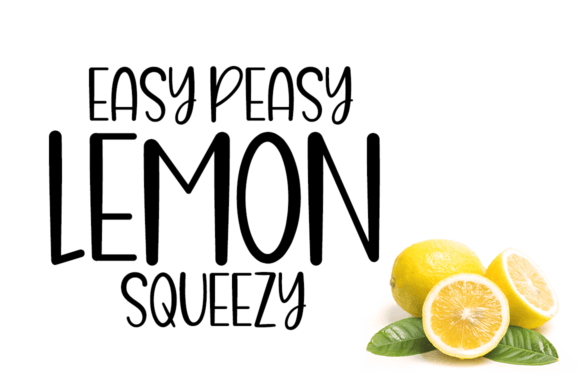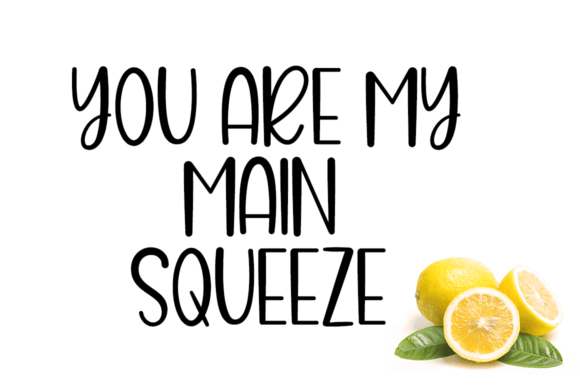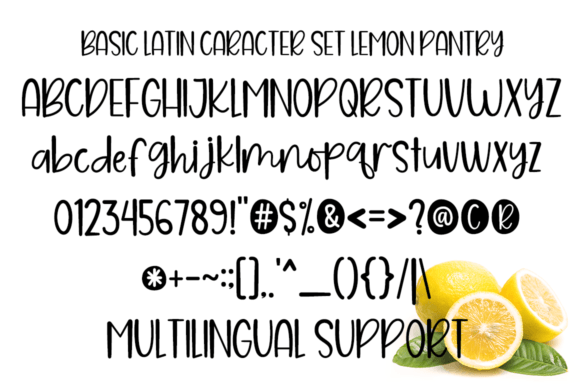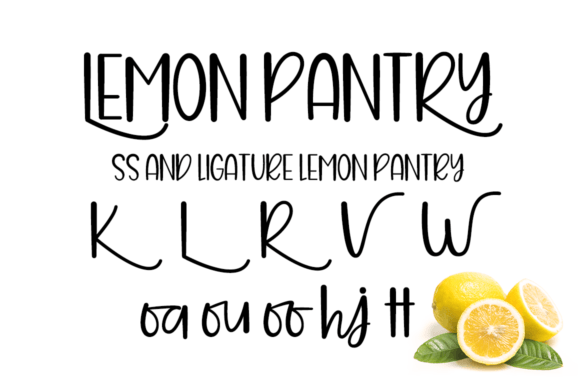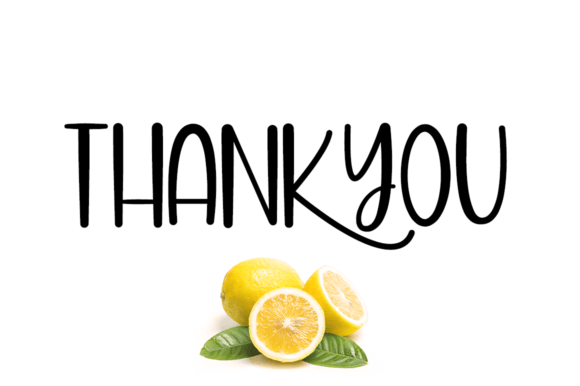
Introduction to Lemon Pantry Font
Have you ever stared at a blank canvas, struggling to find the perfect font to bring your creative project to life? That’s exactly what happened to me the last time I was working on a design for a friend’s bakery. I wanted something that would evoke the feeling of a sunny day and a refreshing glass of lemonade. That’s when I discovered the Lemon Pantry Font – a fun and charming handwritten font that instantly brightened up my design.
What I love about the Lemon Pantry Font is its whimsical and quirky charm. It’s the perfect addition to any design project, adding a touch of personality and warmth. As a valuable resource for designers, the Lemon Pantry Font is a must-have for anyone looking to add a high-quality, unique touch to their work. And the best part? It’s available for free download, making it a fantastic resource for creative projects on a budget.
Whether you’re working on a design for a food blog, a wedding invitation, or a children’s book, the Lemon Pantry Font is sure to bring a smile to your face and add a touch of magic to your design.
Key Features of Lemon Pantry Font
- High-quality design resource ideal for various creative projects
- Unique, hand-drawn style with a transparent background, perfect for creative designs
- Available in a single weight, with a large x-height for readability
- Perfect for use in food, kitchen, and home decor-related designs, or any project where a bright and cheerful font is desired
Honest Review: Lemon Pantry Font
I recently came across the Lemon Pantry Font, and I was excited to dive in and see what it had to offer. As a designer, I’m always on the lookout for high-quality design resources to elevate my creative projects. And I’m happy to report that the Lemon Pantry Font delivers.
- ✨ The font is super versatile and can be used for a variety of projects, from food labels to packaging design.
- ✨ The transparent background makes it easy to layer over other design elements.
That being said, I do have a few reservations. ⚠️ The font can be a bit overused, and I’ve seen it used in a lot of similar projects. ⚠️ Additionally, the font doesn’t come with a lot of customization options, which might be a drawback for some designers.
Overall, I’d say the Lemon Pantry Font is a solid choice for designers who are looking for a high-quality, easy-to-use font for their creative projects. Just be aware of its limitations and try to use it in a way that adds a fresh twist to your design.
How to Use Lemon Pantry Font
Tips for Getting the Most Out of Lemon Pantry Font
Experiment with different font styles and sizes to create a unique design effect. Use the font’s transparent background to create layered designs and add depth to your creative project.
Common Use Cases for Lemon Pantry Font
The Lemon Pantry Font is ideal for use in invitations, menus, labels, and other creative projects where a elegant and sophisticated look is desired.